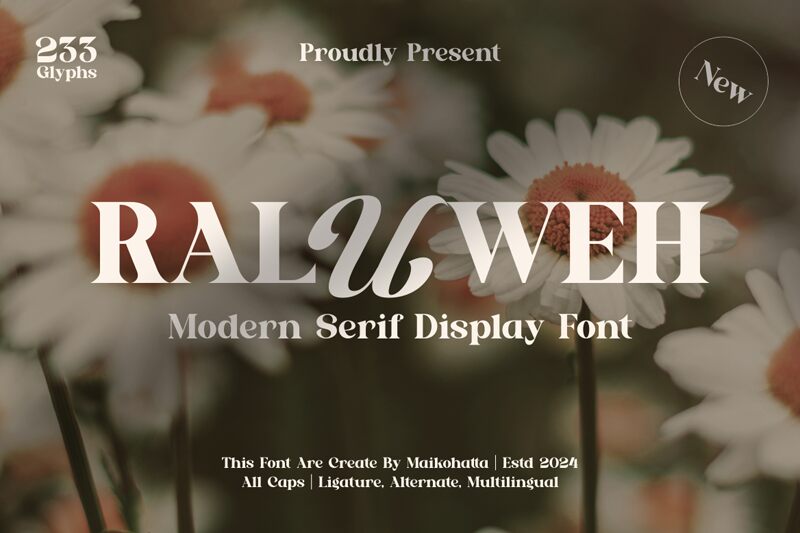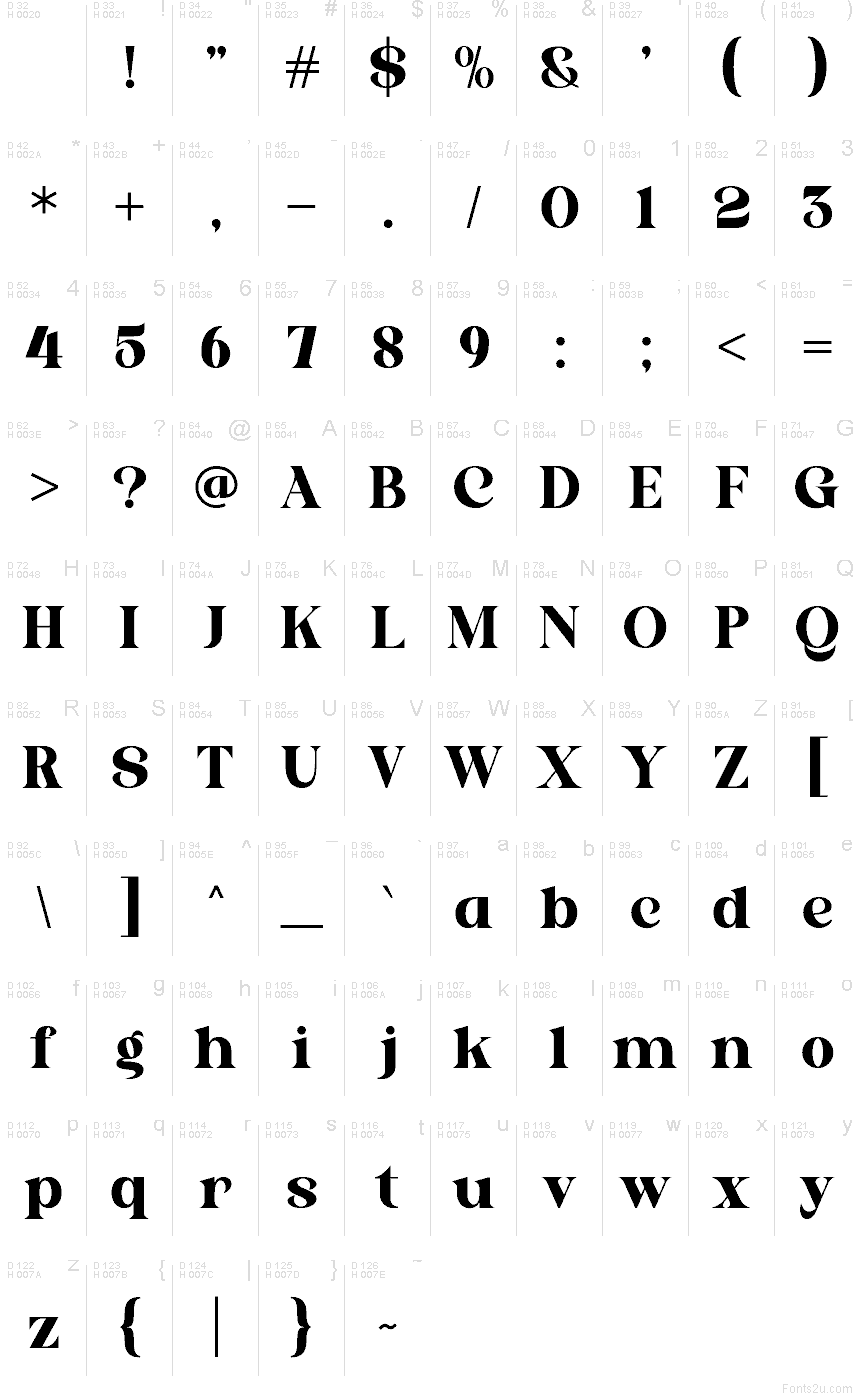
RALUWEH
Raluweh font by Gilang Ternadho of Maikohatta is a free serif typeface with a bold, sculpted presence and striking cutout shapes. Thick verticals are carved by sharp white gaps, giving each letter a stencil-like silhouette that feels both luxurious and a little rebellious. The spacing is tight and the forms are wide, so words lock together like pieces of a glossy black-and-white mosaic.
Using Raluweh, your titles and wordmarks immediately feel editorial, dramatic, and modern. This free font shines on fashion branding, posters, album covers, packaging, social media graphics, and bold website hero text. Keep it large so the carved details stay crisp, and pair Raluweh with a clean geometric sans for body copy to balance its rich, sculptural flair.